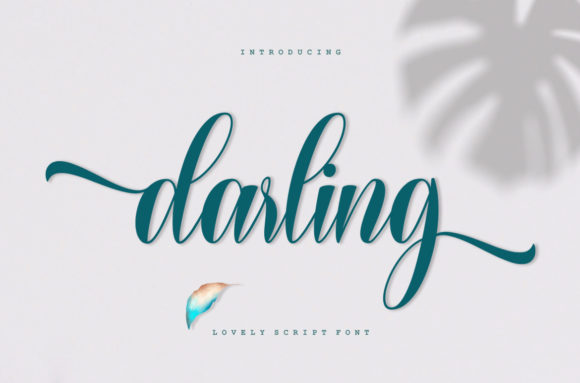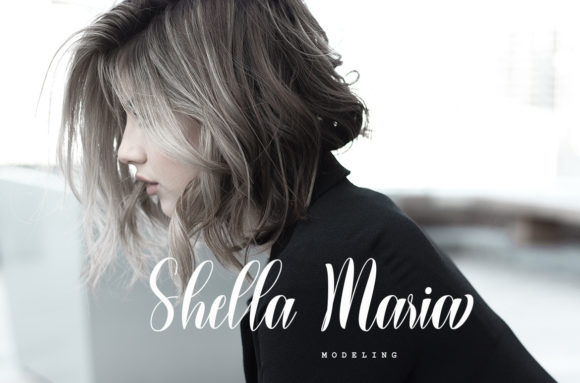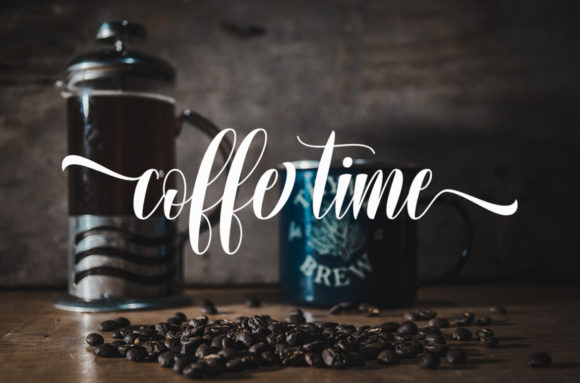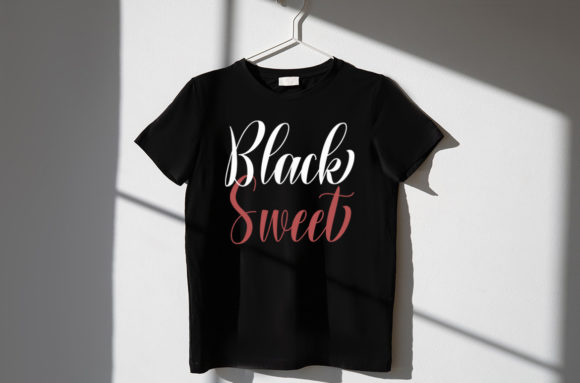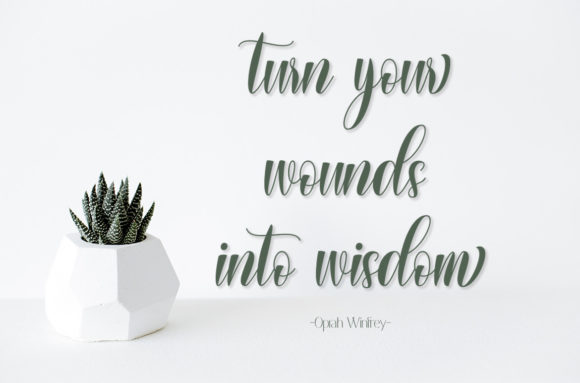
About Darling Script Font
Darling Script is a beautifully crafted font that strikes a perfect balance between elegance and readability. Its well-designed letterforms make it a versatile choice for a variety of branding projects, t-shirt designs, sports-related graphics, and more.
When used in logos, Darling Script exudes a sense of sophistication and charm. Its flowing and connected letters create a harmonious and cohesive visual that can enhance the identity of a brand. Whether it’s a boutique, a creative agency, or a lifestyle brand, Darling Script adds a touch of elegance that resonates with audiences.
In t-shirt printing, Darling Script brings a unique and stylish flair. Its balanced strokes and graceful curves make it an excellent choice for creating trendy and fashionable designs. From casual wear to statement pieces, the font can be adapted to suit various styles and themes, adding a touch of personality to any garment.
For sport-related designs, Darling Script can capture the spirit of teamwork, competition, and athleticism. Its well-balanced appearance allows it to convey a sense of dynamism and energy, making it suitable for sports team logos, event promotions, and active lifestyle branding.
Beyond branding and t-shirts, Darling Script can also be used effectively in various other contexts. Its versatility extends to social media graphics, quotes, posters, invitations, and more. The font’s readability ensures that messages come across clearly while maintaining a visually appealing and stylish aesthetic.
Overall, Darling Script is a well-balanced font that can elevate a wide range of design projects. Its elegance, readability, and adaptability make it a valuable asset for designers seeking to create impactful visuals that leave a lasting impression. Whether it’s for logos, t-shirt designs, sports graphics, or beyond, Darling Script adds a touch of sophistication and charm to any creative endeavor.